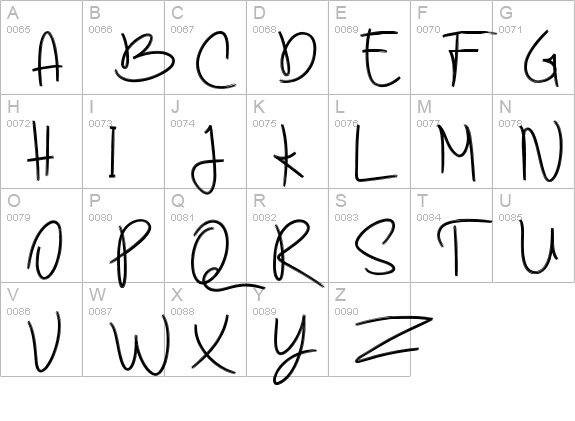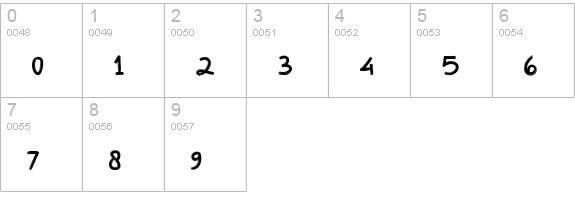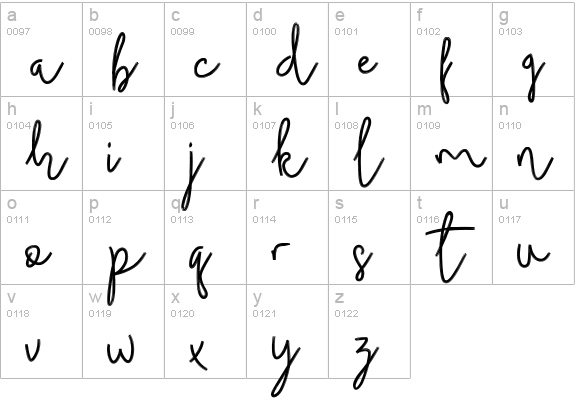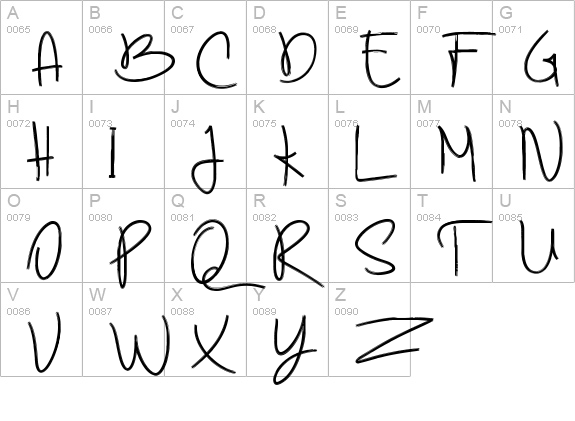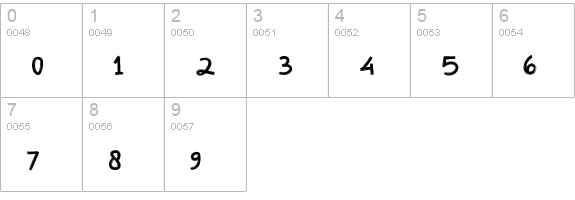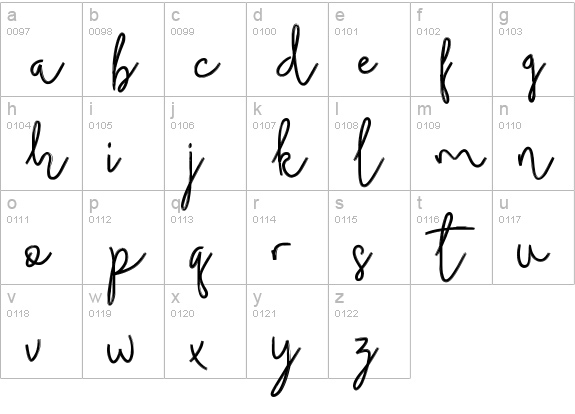
Budhayanti Script - Font Duo Font Details
Introducing Budhayanti Script - Font Duo, a stunning and versatile font combination that is sure to elevate your design projects to the next level. This unique duo features a beautiful script font with elegant swirls and flourishes, perfectly complemented by a sleek and modern sans-serif font.
Budhayanti Script - Font Duo is the perfect choice for a wide range of design applications, from wedding invitations and branding projects to social media graphics and product packaging. With its sophisticated and stylish look, this font duo will add a touch of elegance and class to any project.